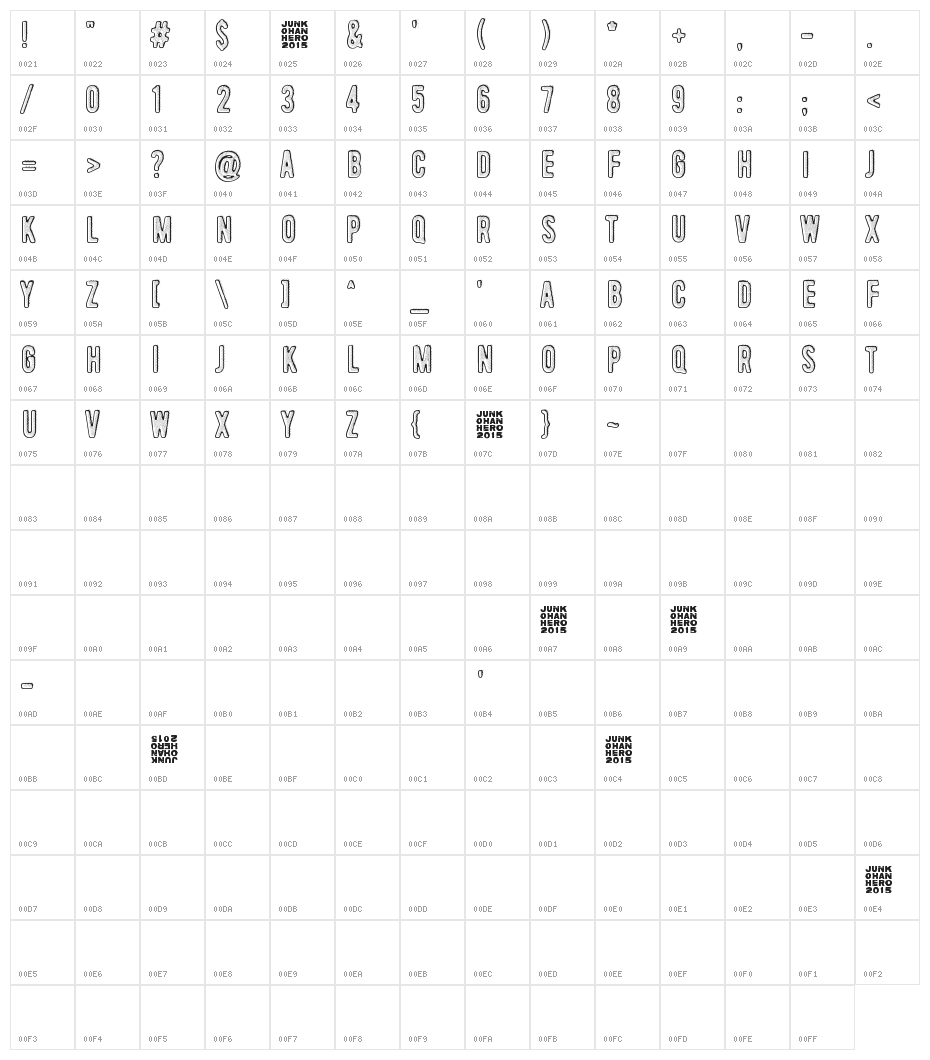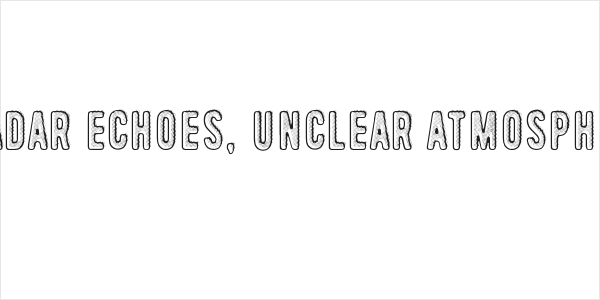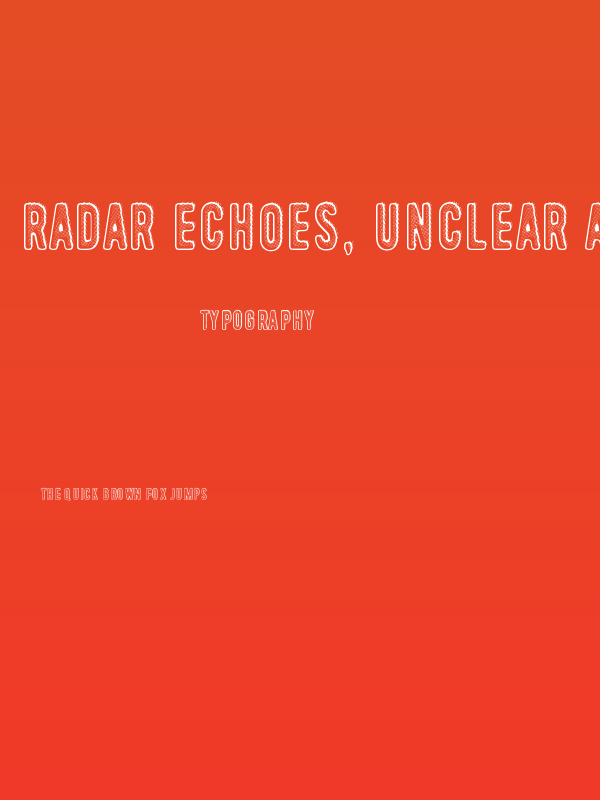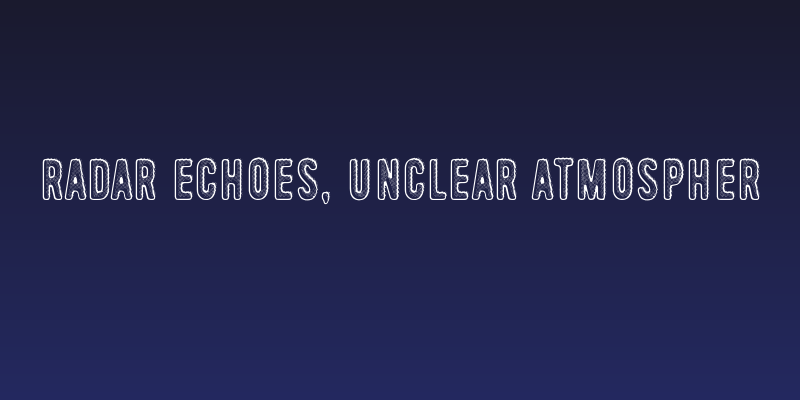
Radar Echoes, Unclear Atmospher Font
This font features a bold, playful style with a dotted texture that gives it a unique, hand-drawn appearance. The characters are rounded and slightly irregular, adding to the whimsical feel. The uppercase and lowercase letters maintain a consistent style, with the numbers and special characters following suit. The font's dotted texture creates a sense of depth and movement, making it stand out in any design. It's perfect for projects that require a fun and engaging look, such as children's books, posters, or creative branding. The overall style is decorative and eye-catching, suitable for headlines and display purposes.
| Use Case | Headlines, Display |
| Proposed Projects | Ideal for children's books, posters, creative branding, and any project needing a fun, engaging look. |